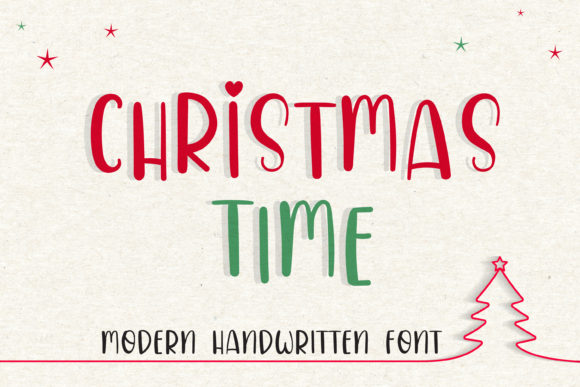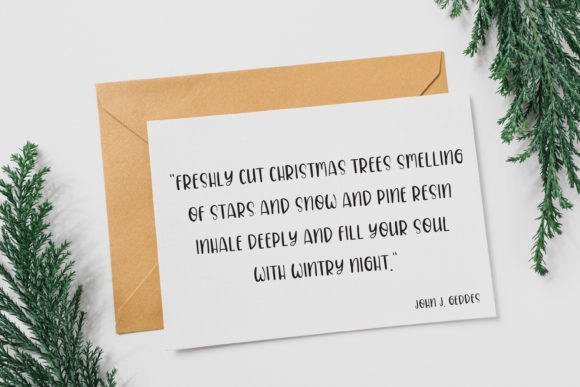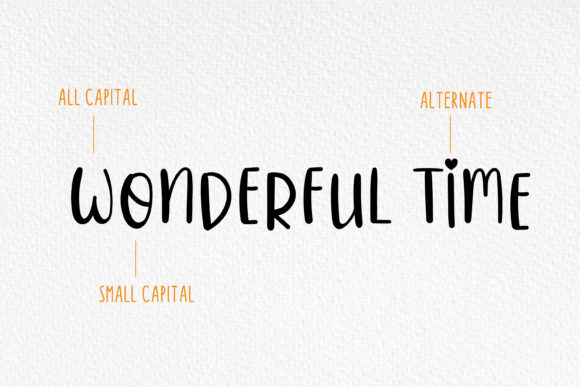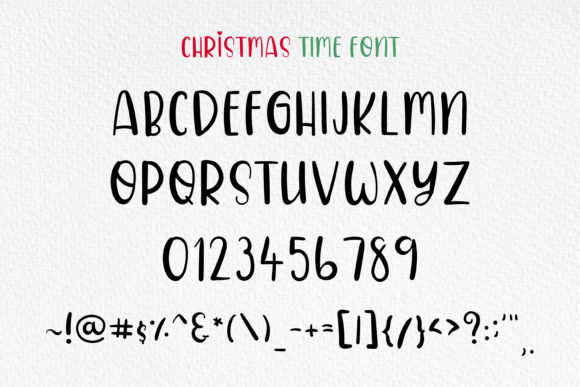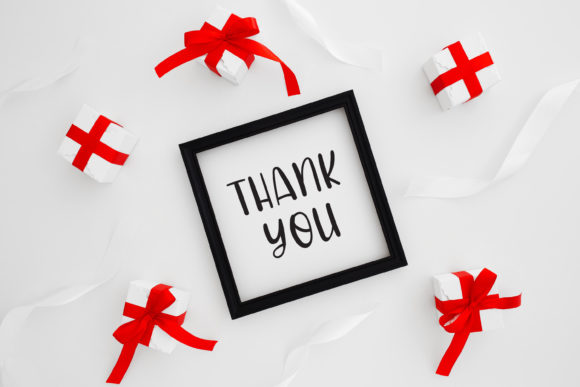
Christmas Time Font
About Christmas Time Font
Christmas Time is a sweet and jolly handwritten font. Fall in love with its incredibly versatile style and use it to create gorgeous designs!